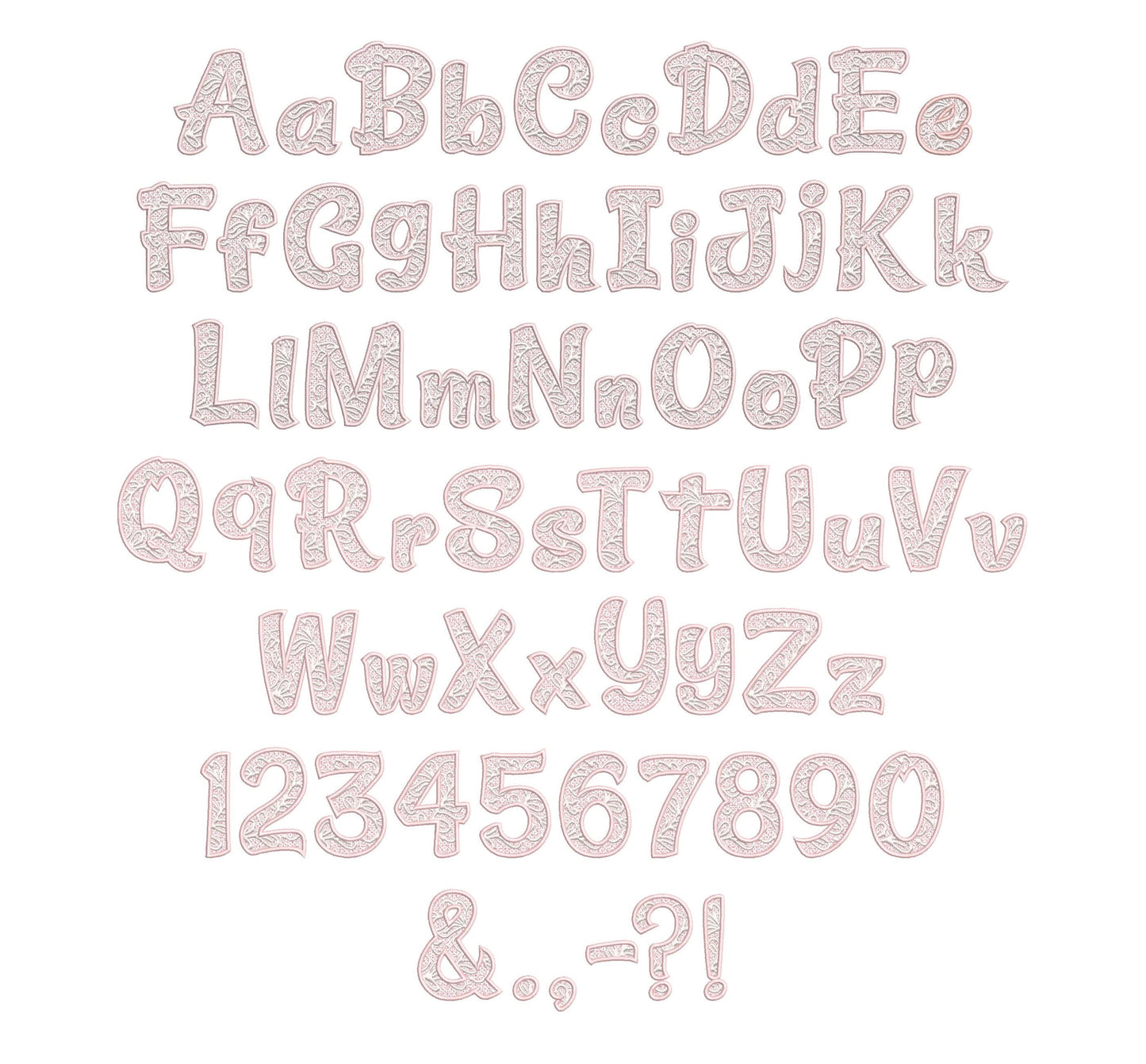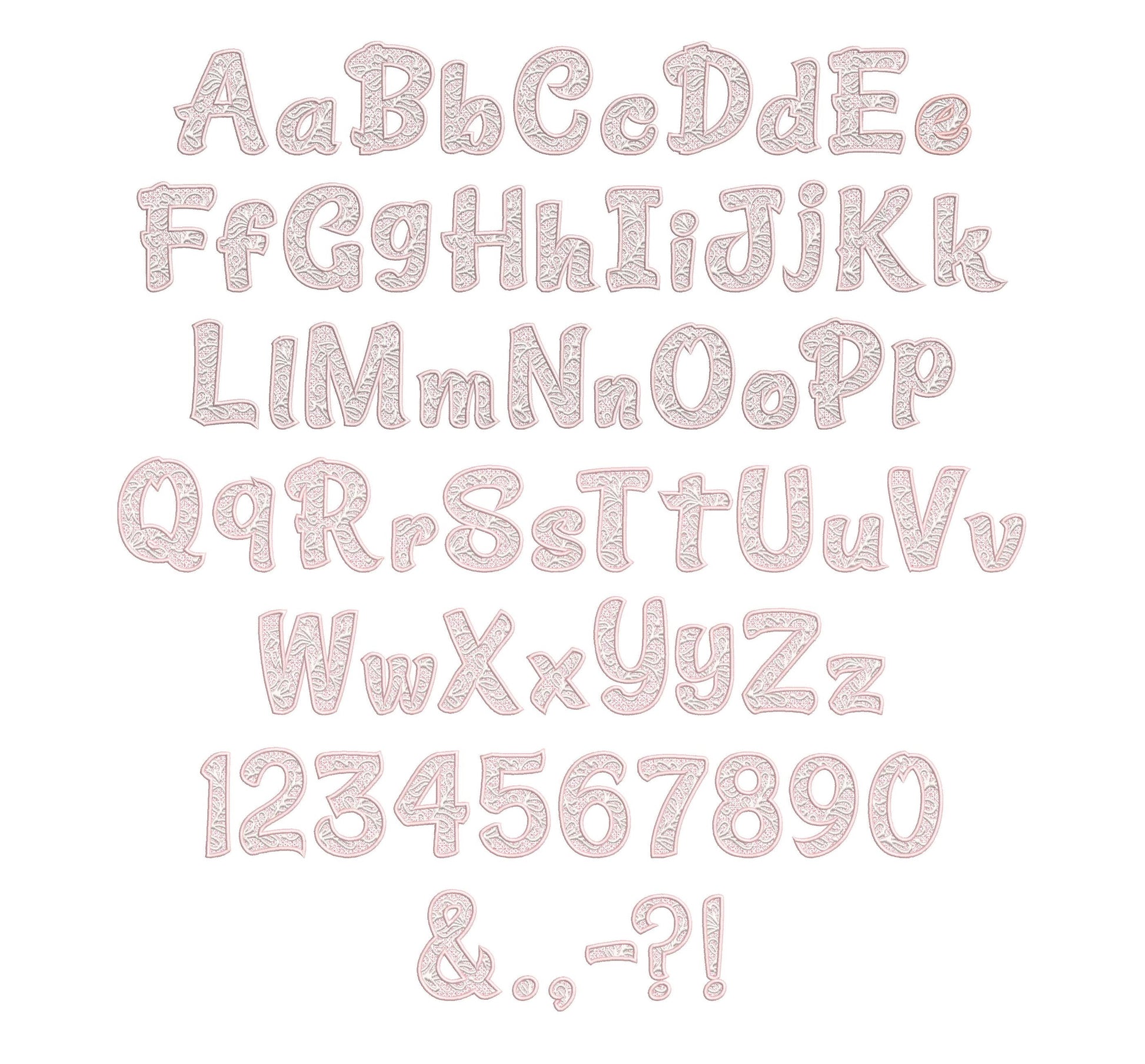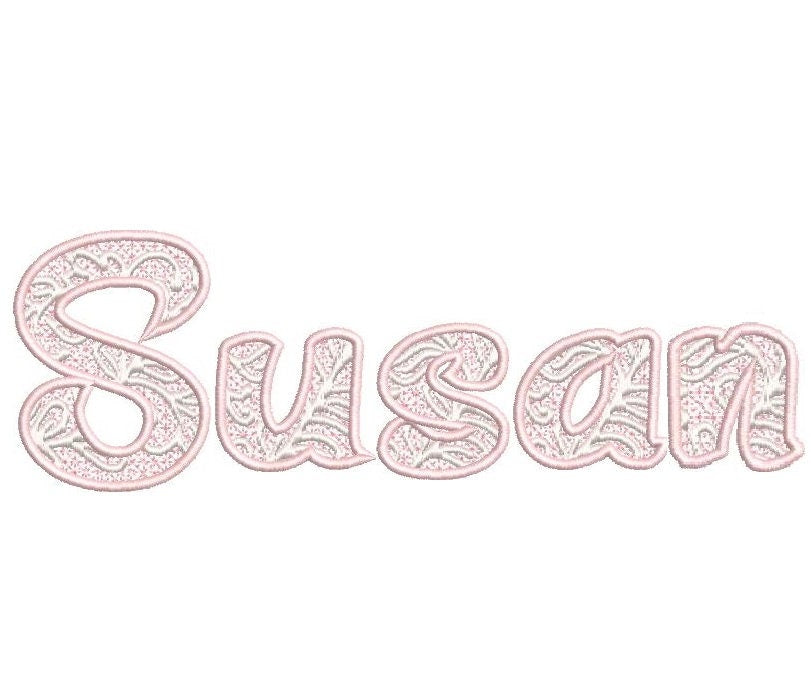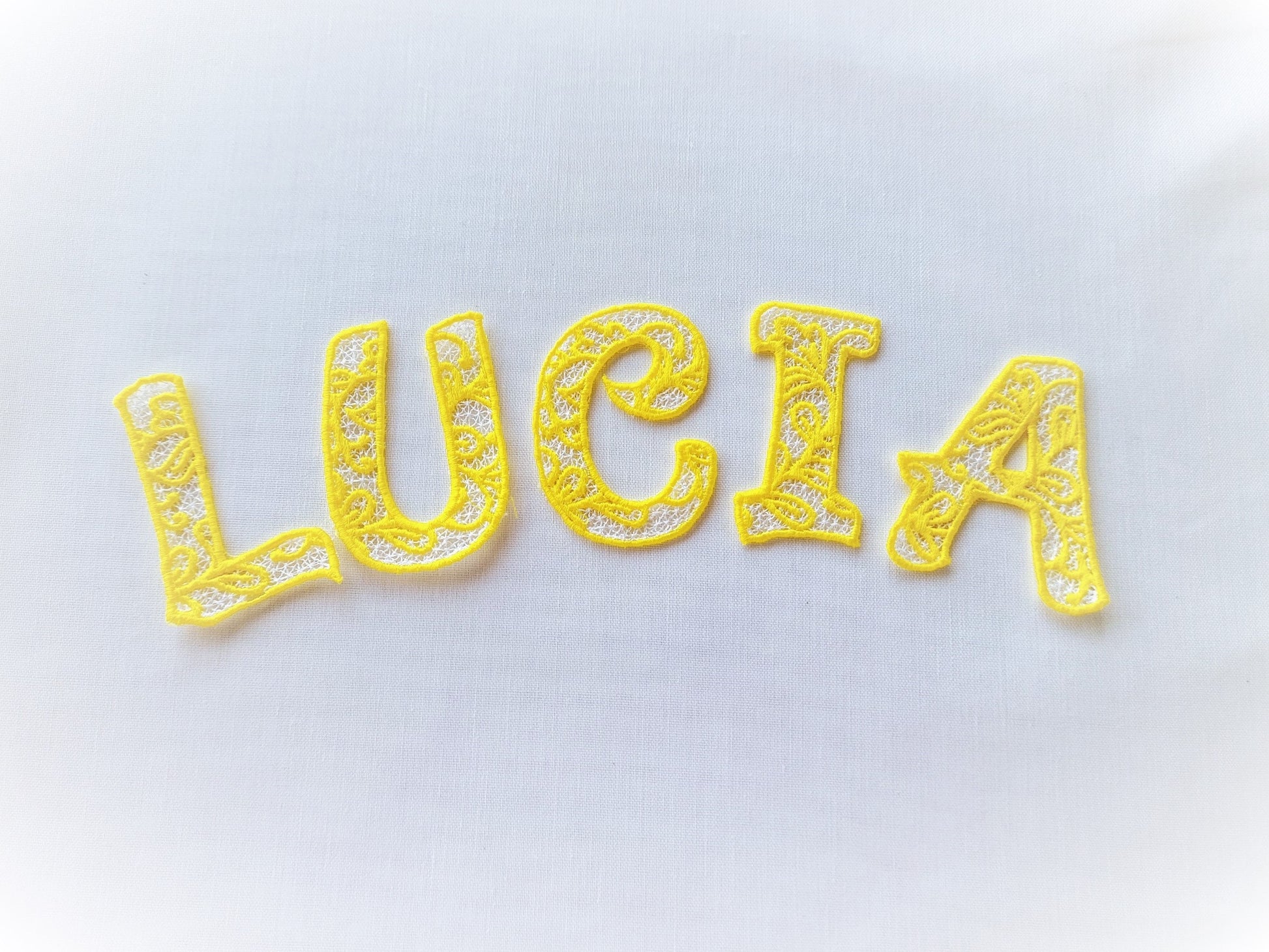
Or click to open the linkA free standing lace font for lacy initials, ornaments, garlands and gift decorations.
Uppercase and lowercase letters, numbers 0 to 9 and punctuation, in five sizes: 2, 2.5, 3, 3.5 and 4 inches. Stitched on wash-away stabilizer, so each letter stands on its own once rinsed.